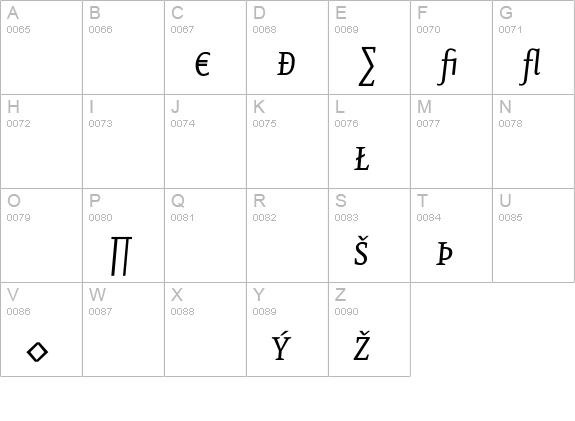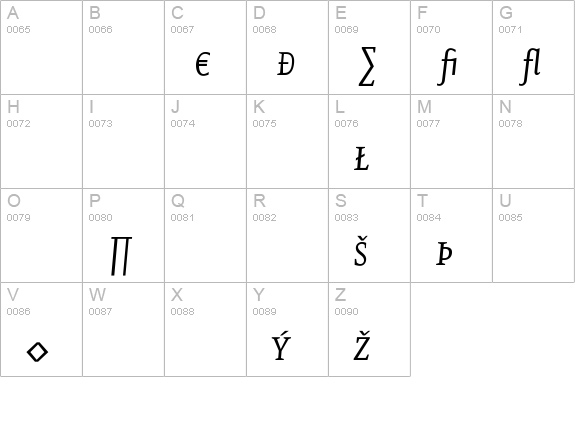
Eureka Regular Italic Exp is the standard, neutral, italic variant in the Eureka typeface family \xE2\x80\x94 well suited to general body text, paragraphs, and standard typographic work.
Eureka Regular Italic Exp font is a sleek and modern typeface that exudes elegance and sophistication. With its stylish italic design, this font is perfect for adding a touch of flair to any project. The flowing curves and sharp angles create a sense of movement and dynamism, making it ideal for use in headings, logos, and other design elements. What sets Eureka Regular Italic Exp font apart is that it is available for free download at FontsMarket.com. This means that you can easily access this high-quality font without having to spend a penny. Whether you are a designer looking to add a new font to your collection or a business owner in need of a fresh look for your branding, Eureka Regular Italic Exp font is a fantastic choice. Download it today and elevate your designs with this stylish and versatile typeface.